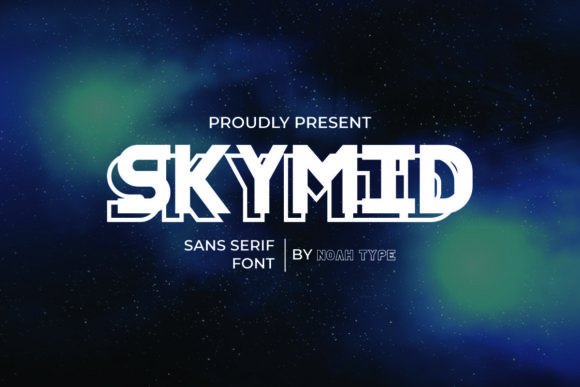
Prepare yourself to enter a world of captivating designs and leave a lasting impression with SkyMid: the modern sans serif font that exudes coolness and boldness. Step into the realm of creativity and unlock the endless possibilities that await you.
With SkyMid, you'll embark on a journey to transform your designs into masterpieces. Its unique style brings an unmatched charm that commands attention and leaves an unforgettable mark. Whether you're creating games, showcasing technology, planning an event, crafting headlines, designing logos, or creating posters and titles, SkyMid is your ultimate companion.
Embrace the power of expressiveness and let your products speak volumes. SkyMid is the perfect choice for adding a touch of sophistication to your designs. Its bold characters demand attention and convey a sense of strength and confidence. Let your brand shine with a font that embodies modernity and innovation.
Get ready to turn heads and make a statement with SkyMid. Unleash your creativity and experience a new era of design possibilities. Its versatility knows no bounds, adapting seamlessly to any project you envision. From sleek and minimal to bold and daring, SkyMid empowers you to convey your message with impact and style.
Don't settle for ordinary designs. Break free from the mundane and embrace the extraordinary with SkyMid. Its intricate details and striking presence will captivate your audience, leaving them mesmerized and longing for more. Elevate your projects to new heights and create designs that leave a lasting legacy.
Join the league of creative visionaries and let SkyMid be your secret weapon. It's the font that will ignite your imagination and propel your designs to unprecedented levels of excellence. Experience the exhilaration of creating designs that resonate, inspire, and redefine the boundaries of creativity.